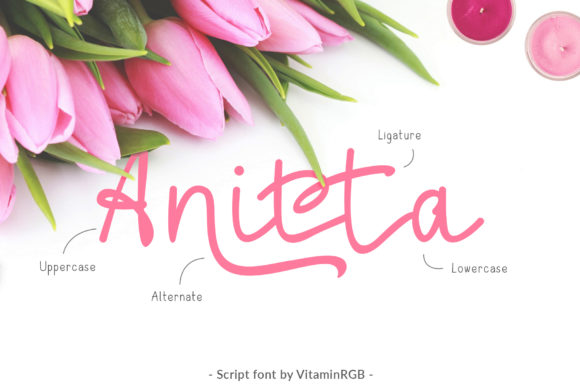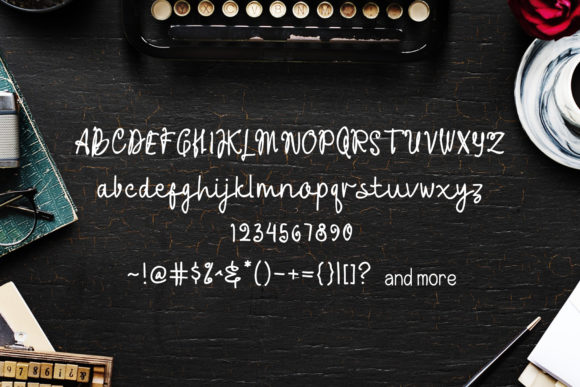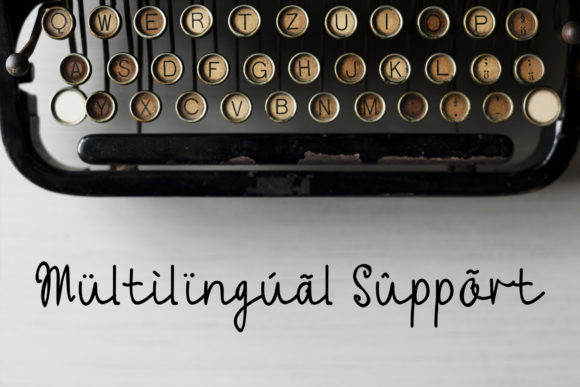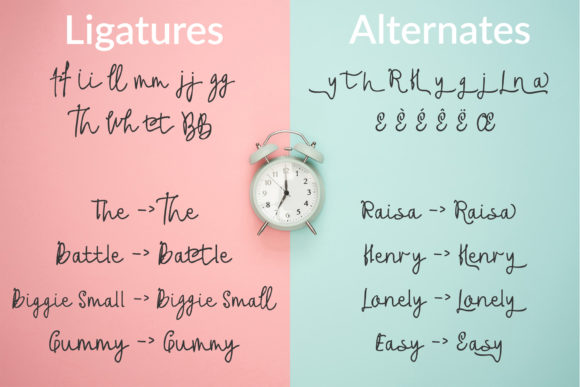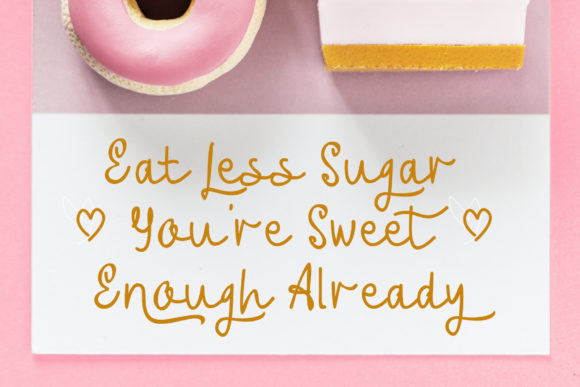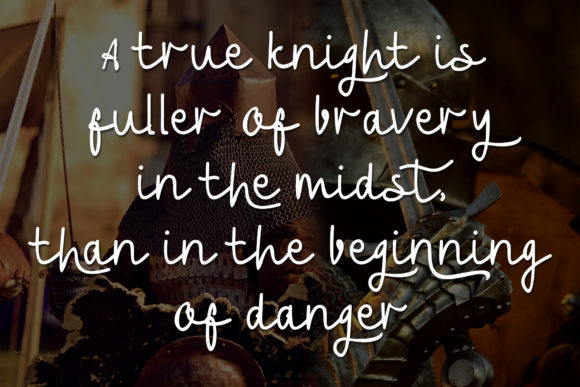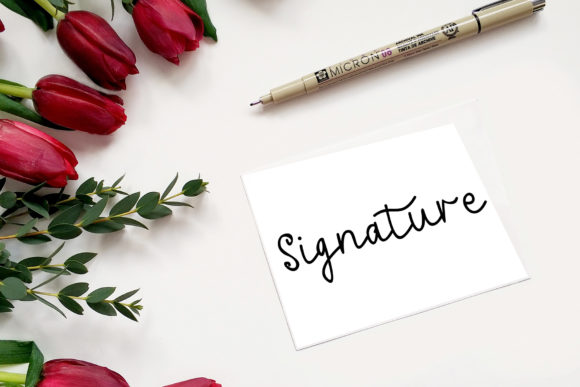
Anitta Script Font
About Anitta Script Font
The Anitta is a beautiful and elegant script font. It’s perfect for invitations, posters, social media, and much more!